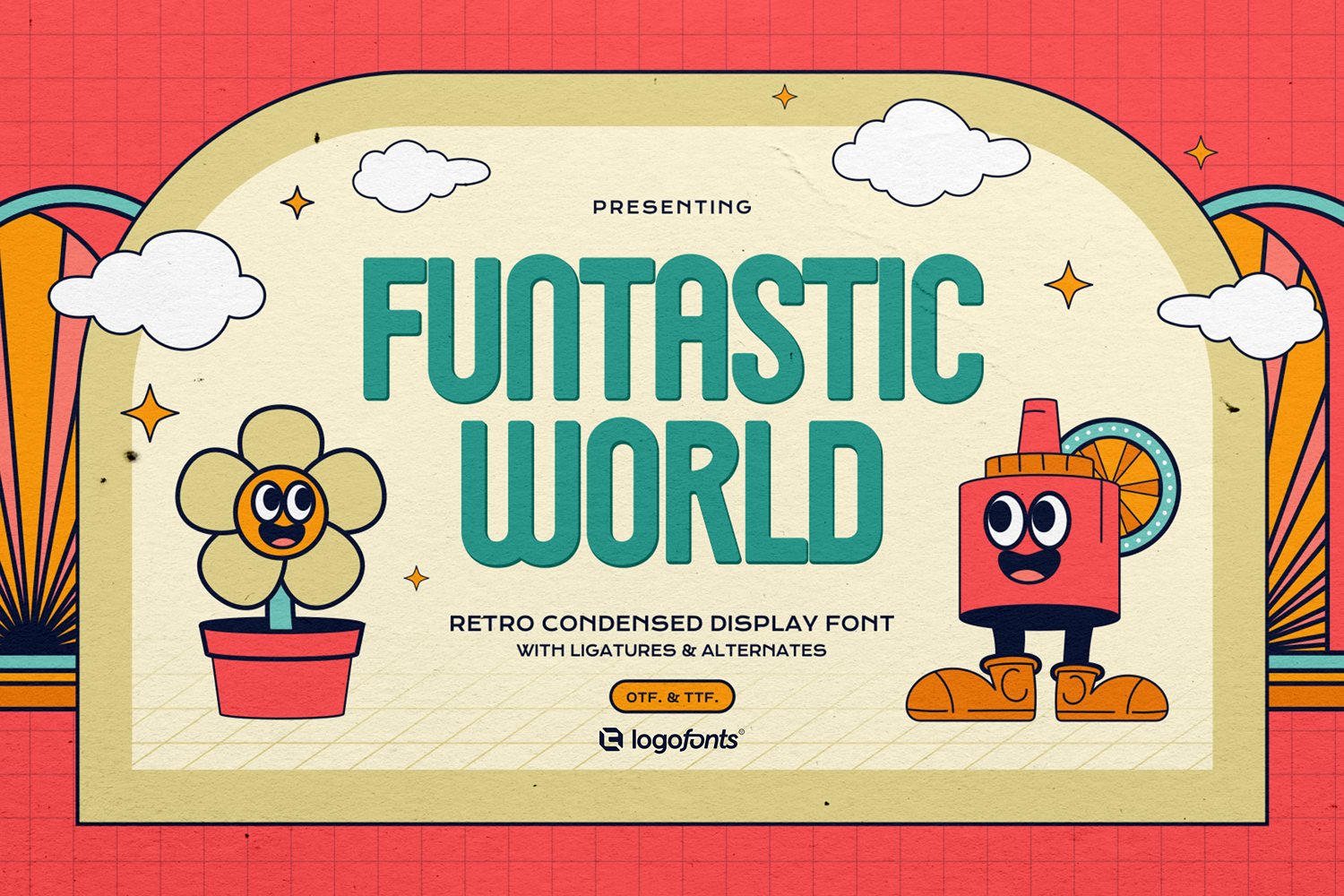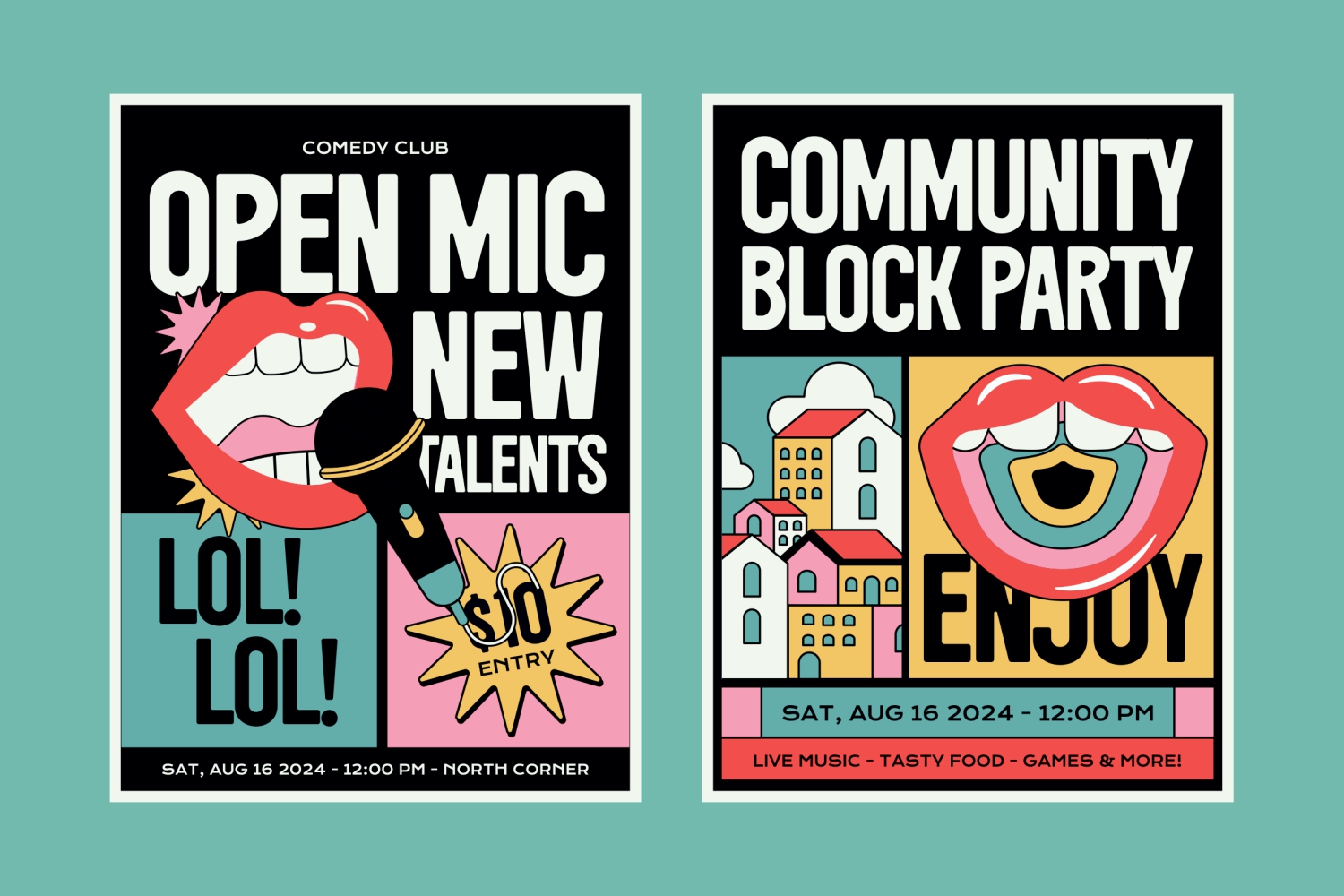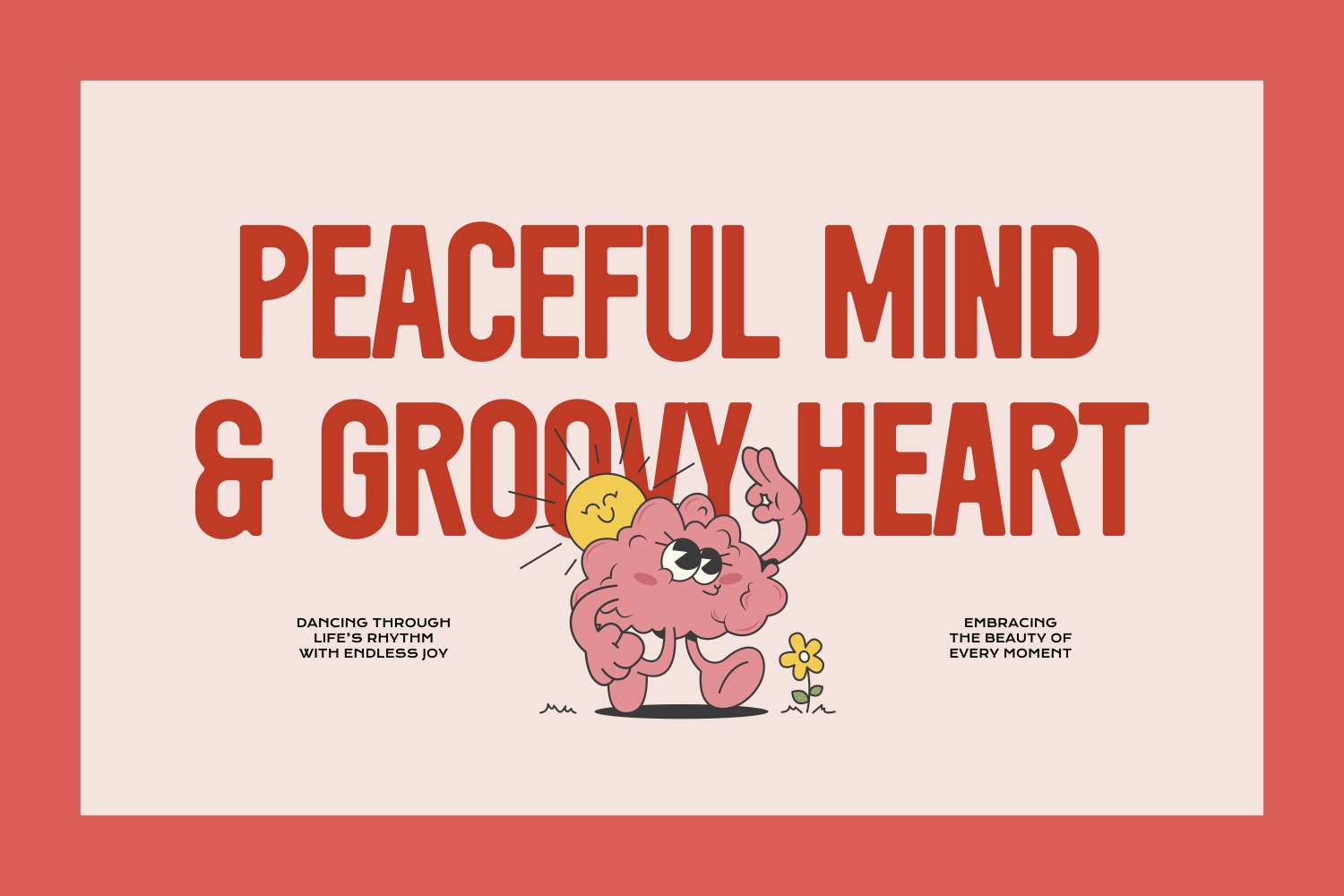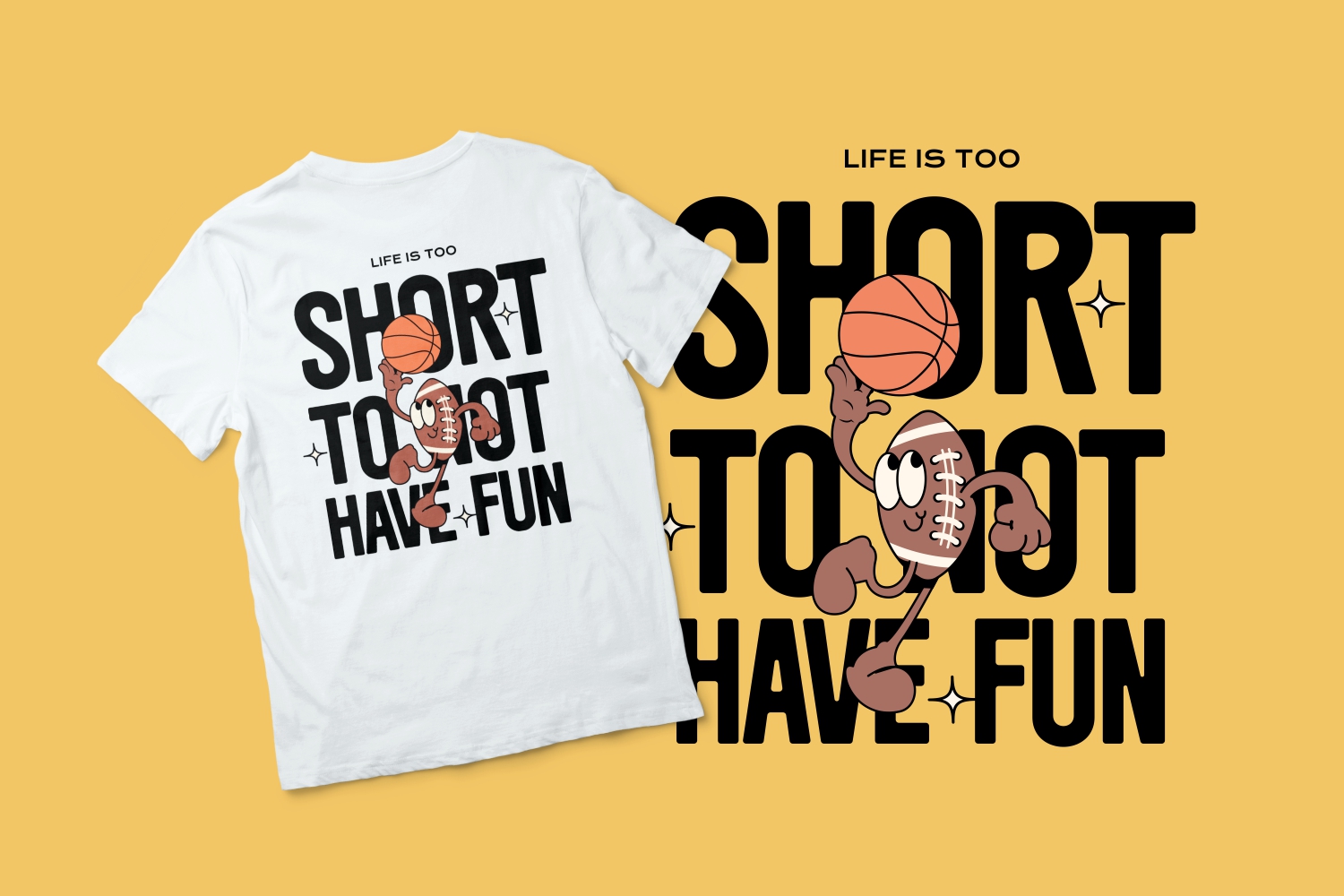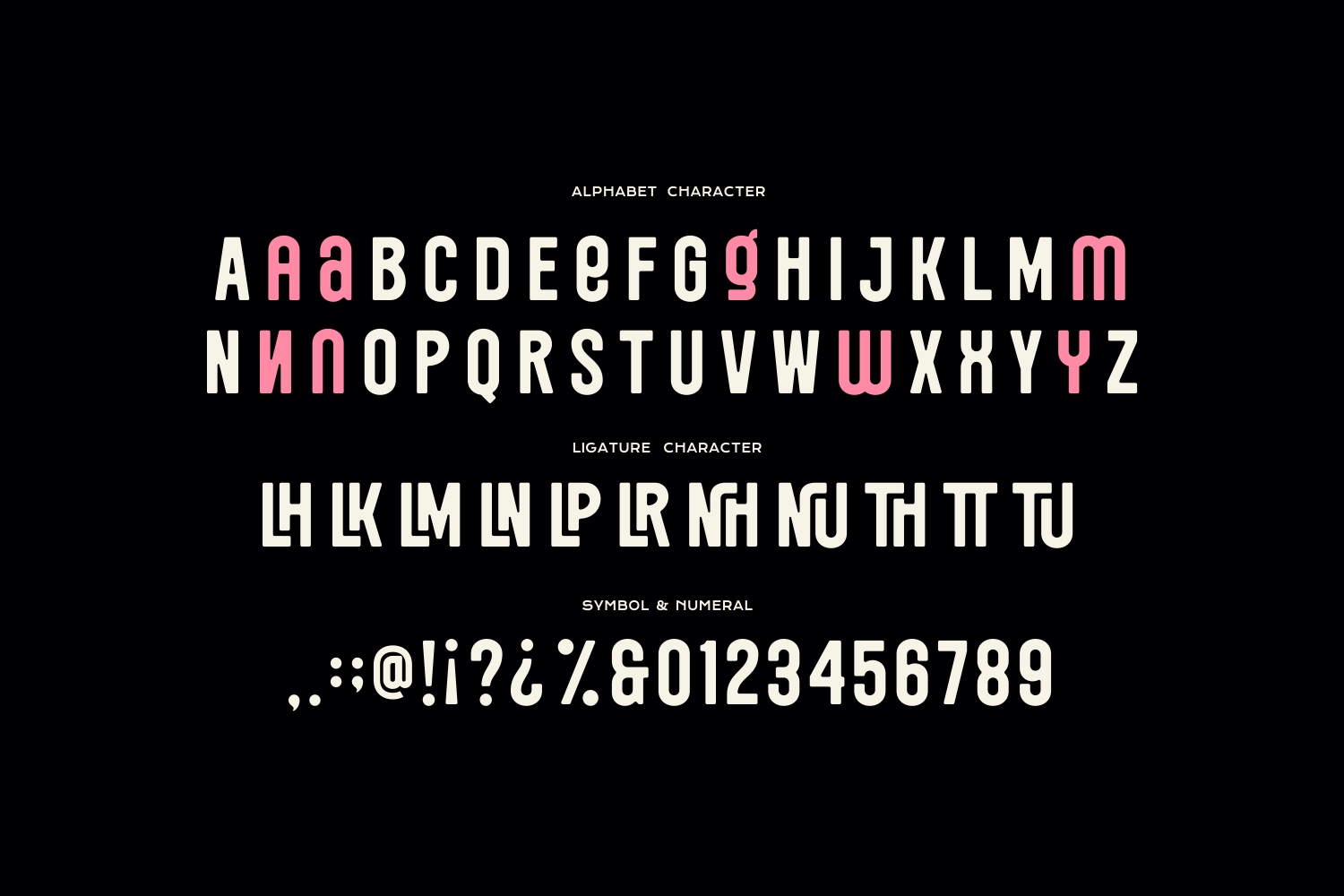
Funtastic World is a playful and retro-inspired condensed display font with strong personality and charm. Its tall letterforms, rounded corners, and quirky alternates bring a nostalgic yet modern energy to your design. Perfectly suited for fun branding, kids’ posters, comics, T-shirt designs, and party flyers, this font delivers visual joy with a bold, condensed style.
Equipped with a collection of ligatures, alternates, and multilingual support, Funtastic World offers creative flexibility to bring cheerful vibes into any layout. Whether you’re designing for a comedy event, cartoon product, or groovy merchandise, this font adds instant character and delightful appeal to every word.
Funtastic World